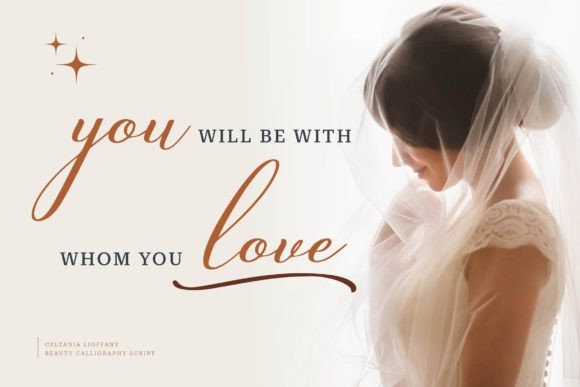
Celtaniya Bioffany Font: Elevate Your Designs with Elegant Calligraphy
The world of typography is vast and diverse, offering a multitude of fonts to suit various design needs. Among these, the Celtaniya Bioffany font stands out for its exceptional beauty and elegance. This stunning calligraphy script is perfect for creating stylish designs, including invitations, logos, and special messages. In this article, we’ll delve into the characteristics, uses, and benefits of the Celtaniya Bioffany font, exploring how it can elevate your designs to new heights.
What is Celtaniya Bioffany Font?
Celtaniya Bioffany is a beautiful and elegant calligraphy script that boasts smooth, flowing letters. Its classic and graceful look makes any text appear artistic and sophisticated. This font is designed to add a touch of luxury and refinement to your designs, making it ideal for projects that require a high level of elegance.
Design Applications of Celtaniya Bioffany Font
The Celtaniya Bioffany font has a wide range of design applications, including:
- Invitations: Whether it’s a wedding invitation, birthday party invite, or any other special occasion, Celtaniya Bioffany adds a touch of sophistication and glamour.
- Logos: The elegant and artistic look of this font makes it perfect for logos, especially for businesses in the luxury, fashion, or beauty industries.
- Special Messages: Use Celtaniya Bioffany to create heartfelt messages, quotes, or phrases that require a personal and elegant touch.
Typographic Features of Celtaniya Bioffany Font
Celtaniya Bioffany boasts several typographic features that make it a standout font:
- Smooth and Flowing Letters: The font’s smooth and flowing letters create a sense of continuity and harmony, making it perfect for elegant designs.
- Classic and Graceful Look: The classic and graceful look of Celtaniya Bioffany adds a touch of sophistication to any text.
- High Readability: Despite its elegant nature, Celtaniya Bioffany maintains high readability, making it suitable for both headings and body text.
Benefits of Using Celtaniya Bioffany Font
Using Celtaniya Bioffany font offers several benefits, including:
- Unique and Distinctive: Celtaniya Bioffany’s unique and distinctive style sets it apart from other fonts, making your designs stand out.
- Elegance and Sophistication: The font’s elegant and sophisticated look adds a touch of luxury to your designs.
- Versatility: Celtaniya Bioffany can be used for a wide range of design projects, from invitations to logos and more.
Tips for Effective Use of Celtaniya Bioffany Font
To get the most out of Celtaniya Bioffany font, follow these tips:
- Pair with Simple Fonts: Pair Celtaniya Bioffany with simple fonts to create a harmonious contrast and enhance readability.
- Use for Headings and Titles: Use Celtaniya Bioffany for headings and titles to add a touch of elegance and sophistication.
- Experiment with Colors: Experiment with different colors to find the perfect match for your design and enhance the font’s elegance.
Inspiration and Examples
Here are some inspiring examples of Celtaniya Bioffany font in use:
- Wedding Invitations: Use Celtaniya Bioffany to create stunning wedding invitations that set the tone for a luxurious and elegant event.
- Luxury Brand Logos: Employ Celtaniya Bioffany for luxury brand logos to convey sophistication and elegance.
- Special Messages: Use Celtaniya Bioffany to create heartfelt messages, quotes, or phrases that require a personal and elegant touch.
In conclusion, Celtaniya Bioffany font is a beautiful and elegant calligraphy script that can elevate your designs to new heights. Its smooth, flowing letters and classic, graceful look make it perfect for creating stylish designs like invitations, logos, and special messages. With its versatility, elegance, and sophistication, Celtaniya Bioffany is an excellent choice for designers looking to add a touch of luxury to their projects.
Final Thoughts
As you explore the world of typography and design, remember that the right font can make all the difference. Celtaniya Bioffany font is a stunning example of elegant calligraphy that can add a touch of sophistication and luxury to your designs. Whether you’re a seasoned designer or just starting out, Celtaniya Bioffany is definitely worth considering for your next project.